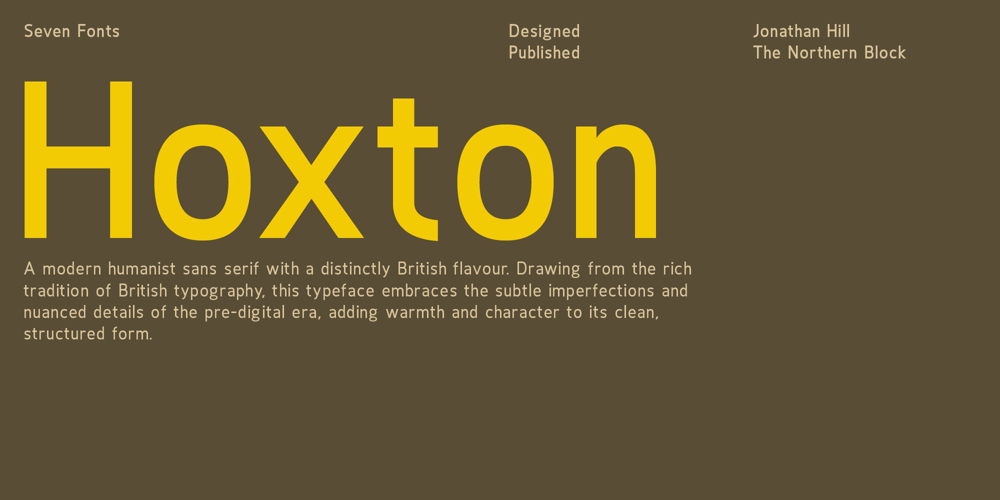
Hoxton Font Family was designed by Jonathan Hill and published by The Northern Block. Hoxton contains 7 styles and family package options. Hoxton is a modern humanist sans serif with a distinctly British flavour. Drawing from the rich tradition of British typography, this typeface embraces the subtle imperfections and nuanced details of the pre-digital era, adding warmth and character to its clean, structured form. Its balanced horizontal flow enhances readability, making it an excellent choice for digital interfaces and on-screen applications. Condensed proportions ensure efficient use of space, perfect for editorial layouts, branding, and UI design. With seven carefully crafted weights, over 500 characters, manual kerning, and European language support, this typeface offers heritage and versatility in a contemporary design landscape.